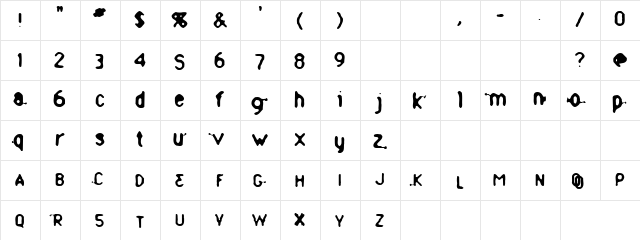
Auto India Regular
Design Context for Auto India Typeface
Auto India takes a measured approach to typography — its balanced proportions and neutral character make it a reliable workhorse for both digital and print work.